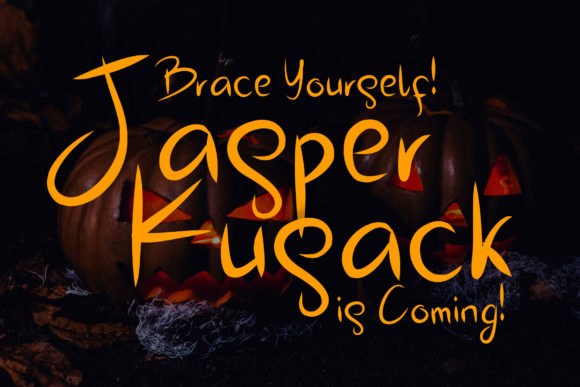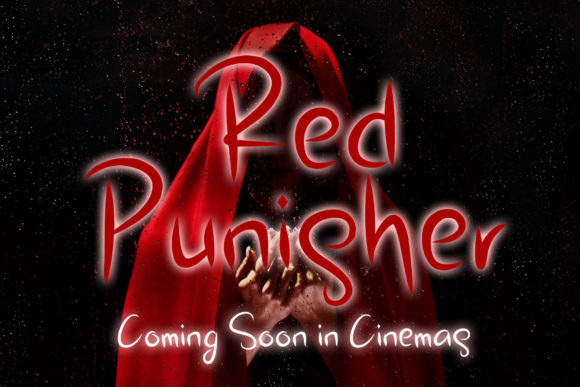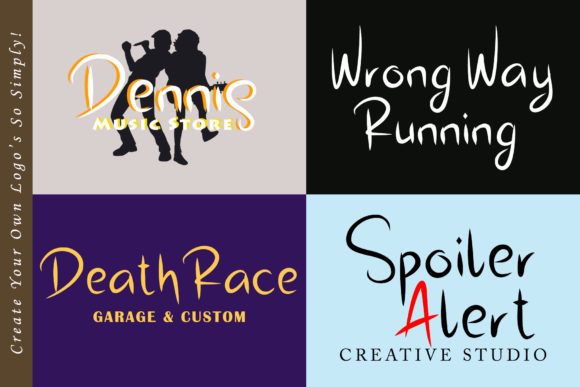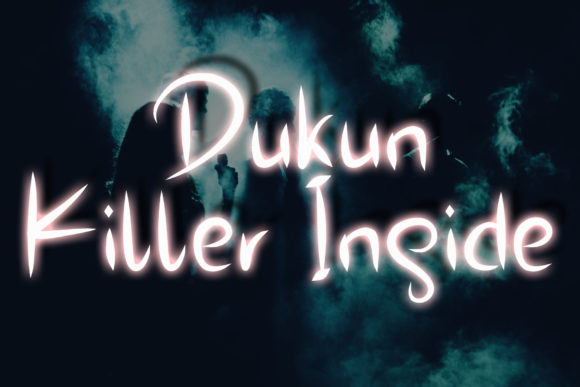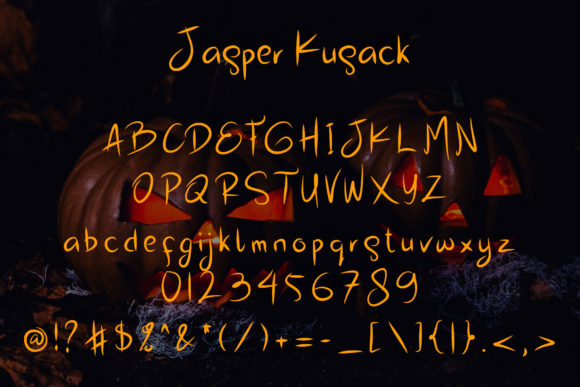
Jasper Kusack Font
About Jasper Kusack Font
Jasper Kusack is a natural and smooth script, perfect for adding a bold touch to any design project. Get inspired by its experimental style!